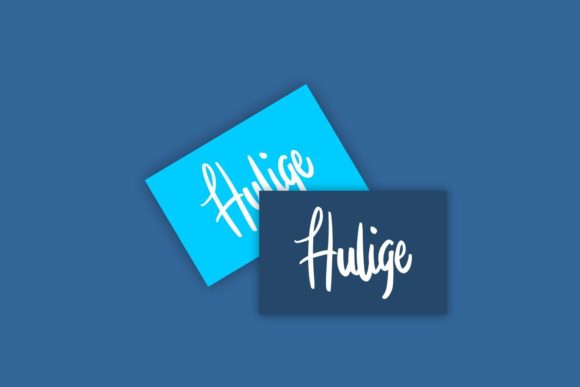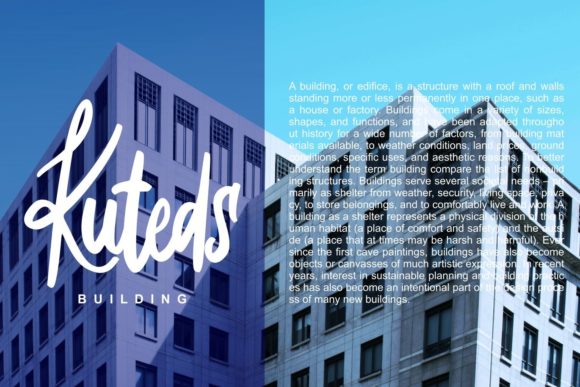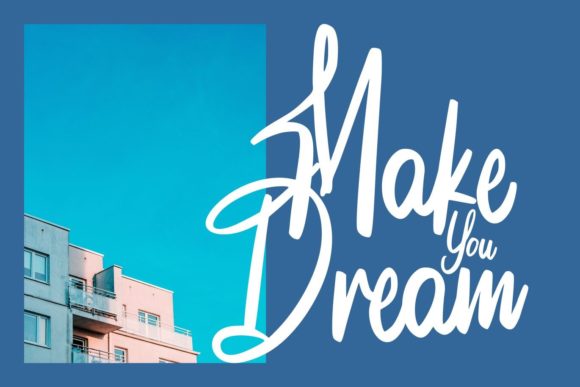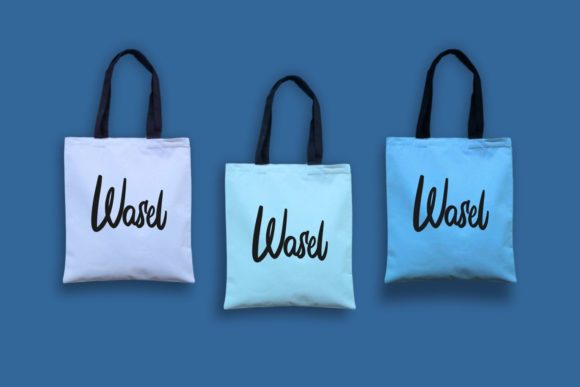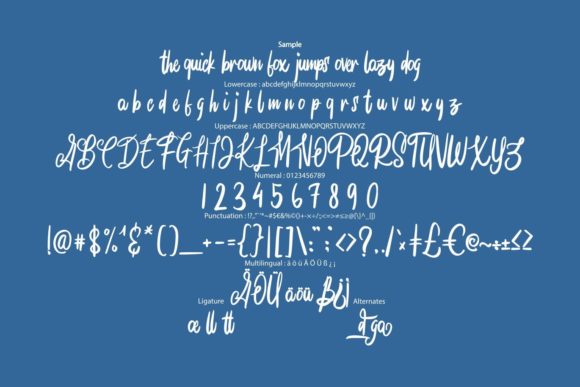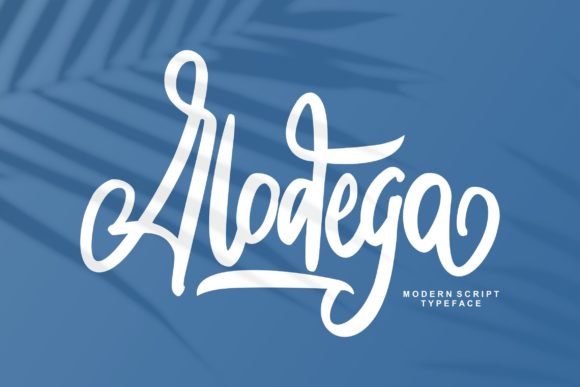
Introducing Alodega Font: A Timeless Handwritten Masterpiece
Are you a designer or crafter looking for a font that can add a touch of elegance and sophistication to your creative projects? Look no further than Alodega Font, a lovely and timeless handwritten font that is sure to make your designs come alive!
What Makes Alodega Font So Special?
Alodega Font is a unique and beautiful handwritten font that is perfect for creating eye-catching logos, branding, and quotes. Every letter has a distinctive and artistic touch that sets it apart from other fonts. The font’s timeless quality ensures that it will remain stylish and relevant for years to come, making it a great investment for designers and crafters.
Alodega Font is incredibly versatile and can be used for a wide range of creative projects, including:
- Logo design: Create a stunning logo that showcases your brand’s personality and style with Alodega Font.
- Branding: Use Alodega Font to create a consistent brand identity that exudes elegance and sophistication.
- Quotes and posters: Add a touch of inspiration and motivation to your quotes and posters with the beautiful and artistic Alodega Font.
- Stationery and invitations: Make your stationery and invitations stand out with the unique and beautiful Alodega Font.
Key Features of Alodega Font
Here are some of the key features that make Alodega Font so special:
- Handwritten: Alodega Font is a genuine handwritten font that has been carefully crafted to mimic the natural flow and imperfections of handwriting.
- Unique lettering: Every letter in Alodega Font has a unique and beautiful touch that sets it apart from other fonts.
- Timeless: Alodega Font has a timeless quality that ensures it will remain stylish and relevant for years to come.
- Versatile: Alodega Font can be used for a wide range of creative projects, from logos and branding to quotes and posters.
Why Choose Alodega Font?
There are many reasons why designers and crafters should choose Alodega Font for their creative projects. Here are just a few:
- Elegance and sophistication: Alodega Font adds a touch of elegance and sophistication to any design.
- Uniqueness: Alodega Font is a unique and distinctive font that will help your designs stand out from the crowd.
- Easy to read: Despite its artistic and handwritten nature, Alodega Font is incredibly easy to read, making it perfect for use in a wide range of creative projects.
Tips for Using Alodega Font
Here are a few tips for getting the most out of Alodega Font:
- Experiment with different sizes and colors: Alodega Font looks great in a wide range of sizes and colors, so don’t be afraid to experiment and find the perfect combination for your design.
- Use it sparingly: While Alodega Font is incredibly beautiful, it can be overwhelming if overused. Use it sparingly to add a touch of elegance and sophistication to your design.
- Pair it with other fonts: Alodega Font pairs beautifully with other fonts, so consider using it in combination with a sans-serif font to create a stunning contrast.
Alodega Font is a truly special font that is sure to make your designs come alive! With its unique and beautiful lettering, timeless quality, and versatility, it’s the perfect choice for designers and crafters looking to add a touch of elegance and sophistication to their creative projects. So why wait? Download Alodega Font today and start creating stunning designs that will leave a lasting impression!